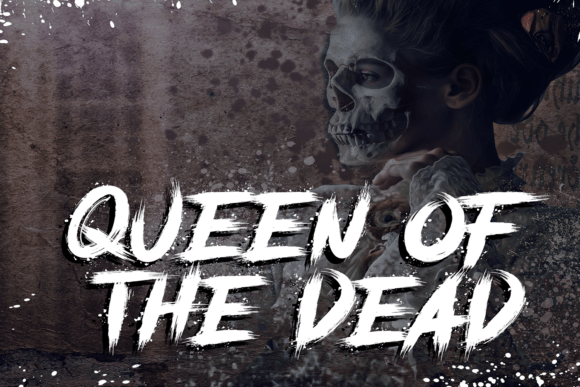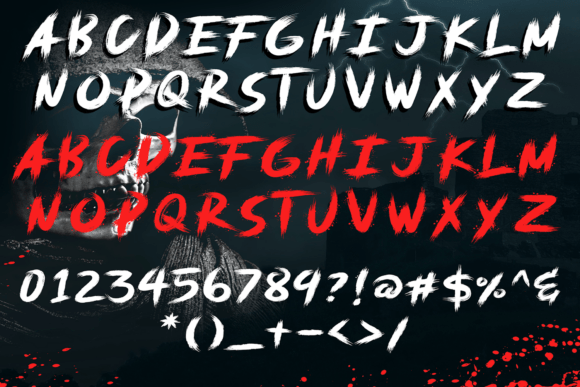
Unleash Your Creativity with Deadpack Font: The Ultimate Choice for Edgy Designs
Are you a designer or crafter looking for a font that can add a bold and daring touch to your projects? Look no further than the Deadpack Font, a high-energy brush typeface that is sure to make your designs stand out. With its rugged edges and expressive strokes, Deadpack is the perfect choice for edgy branding, grunge posters, horror titles, and street-style designs.
What Makes Deadpack Font So Unique?
Deadpack Font is a hand-drawn typeface that boasts a unique texture, giving your message power and movement. Its rugged edges and expressive strokes make it perfect for designs that require a bold and daring touch. The font comes with both uppercase and lowercase letters, making it versatile and easy to use.
Key Features of Deadpack Font
- High-energy brush typeface: Deadpack Font is designed to add a bold and energetic touch to your designs.
- Rugged edges and expressive strokes: The font’s rugged edges and expressive strokes give it a unique texture that is sure to make your designs stand out.
- Uppercase and lowercase letters: Deadpack Font comes with both uppercase and lowercase letters, making it perfect for a wide range of design projects.
- Hand-drawn texture: The font’s hand-drawn texture gives your message power and movement, making it perfect for designs that require a bold and daring touch.
Perfect for Edgy Designs
Deadpack Font is perfect for designers and crafters who want to add an edgy touch to their projects. Its bold and daring design makes it ideal for:
- Edgy branding: Use Deadpack Font to create bold and daring brand identities that are sure to make your business stand out.
- Grunge posters: Add a touch of grunge to your posters with Deadpack Font’s rugged edges and expressive strokes.
- Horror titles: Create spine-tingling horror titles with Deadpack Font’s bold and daring design.
- Street-style designs: Use Deadpack Font to create street-style designs that are sure to make a statement.
Tips for Using Deadpack Font
Here are some tips for using Deadpack Font in your designs:
- Use it boldly: Deadpack Font is designed to make a statement, so don’t be afraid to use it boldly in your designs.
- Experiment with colors: Try pairing Deadpack Font with bold and bright colors to add an extra touch of energy to your designs.
- Mix it with other fonts: Deadpack Font can be paired with other fonts to create a unique and interesting design.
In conclusion, Deadpack Font is a high-energy brush typeface that is perfect for designers and crafters who want to add a bold and daring touch to their projects. With its rugged edges and expressive strokes, Deadpack Font is sure to make your designs stand out. Its hand-drawn texture gives your message power and movement, making it perfect for edgy branding, grunge posters, horror titles, and street-style designs.